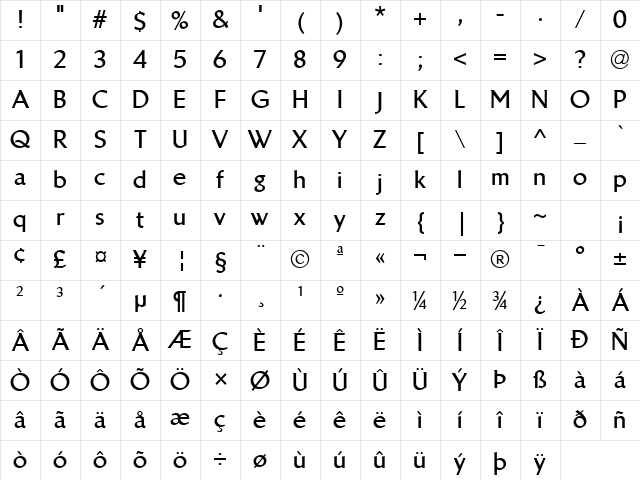
LTBrewery Light Bold
LTBrewery Light Bold Family
Design Context for LTBrewery Light
LTBrewery Light is a composed and adaptable typeface that performs quietly and consistently across a wide range of design contexts. Its bold stroke weight gives it real presence on the page.